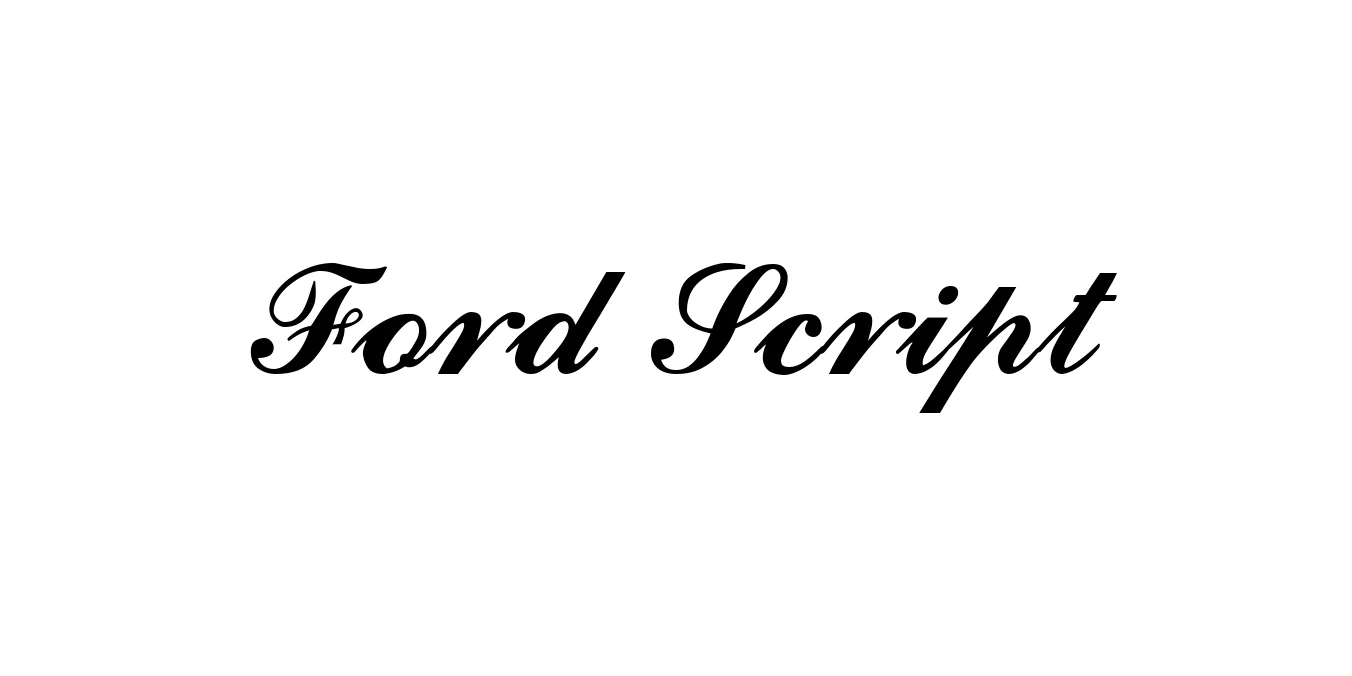
Ford Script
Designed by Childe Harold Wills
| Category | Script / Brand |
| Designer | Childe Harold Wills |
| Similar Fonts | Spencerian Script, Snell Roundhand, Magneto, Edwardian Script |
The Ford Script is one of the most iconic pieces of corporate typography in history, famously associated with the Ford Motor Company. The design is rooted in the Spencerian script style, which was highly popular in the United States during the late 19th and early 20th centuries. While the script was refined over several decades, it was originally developed by Childe Harold Wills, an early associate of Henry Ford, who used his own stylized signature as a base for the branding that would eventually become the world-renowned 'Blue Oval' logo.
Characterized by its elegant, flowing curves and distinctive 'F' with a long, sweeping crossbar, the Ford Script evokes a sense of nostalgia, heritage, and mechanical reliability. In the digital age, various font enthusiasts and type designers have recreated the script as a digital font to allow creators to emulate the classic Americana aesthetic. It remains a primary choice for automotive restoration projects, retro-themed designs, and any project that requires a touch of early 20th-century industrial elegance.
Ford Script Best Uses
Creating automotive-themed or vintage corporate identities.
Perfect for t-shirts, caps, and decals for car enthusiasts.
Used in the refurbishment of classic vehicles and garage signage.
Great for headers in historical or industrial-themed magazines.